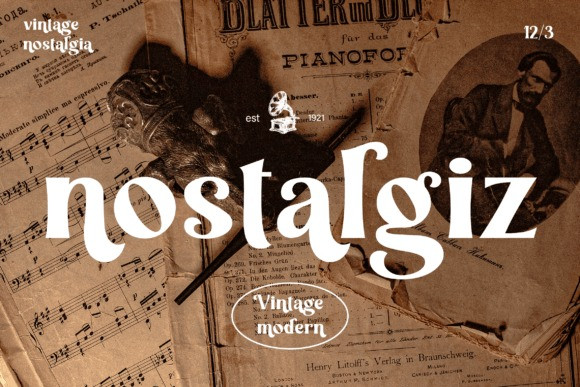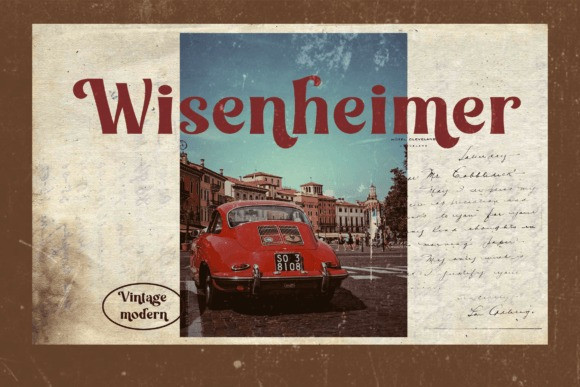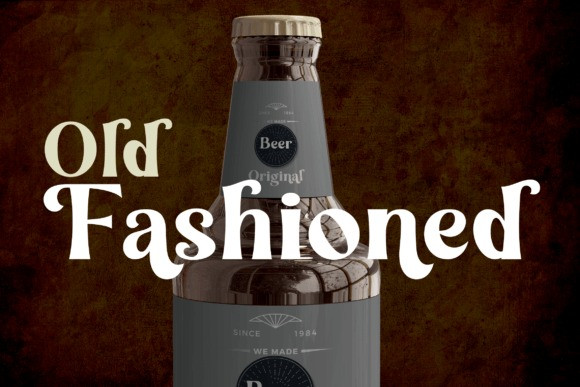
Nostalgiz Font
Introducing Nostalgiz – a Vintage Modern Font.
Whether you’re designing presentations, ads, social media campaigns, or merchandise, Nostalgiz can step up to the task. Try it out and see what a difference a unique font can make.